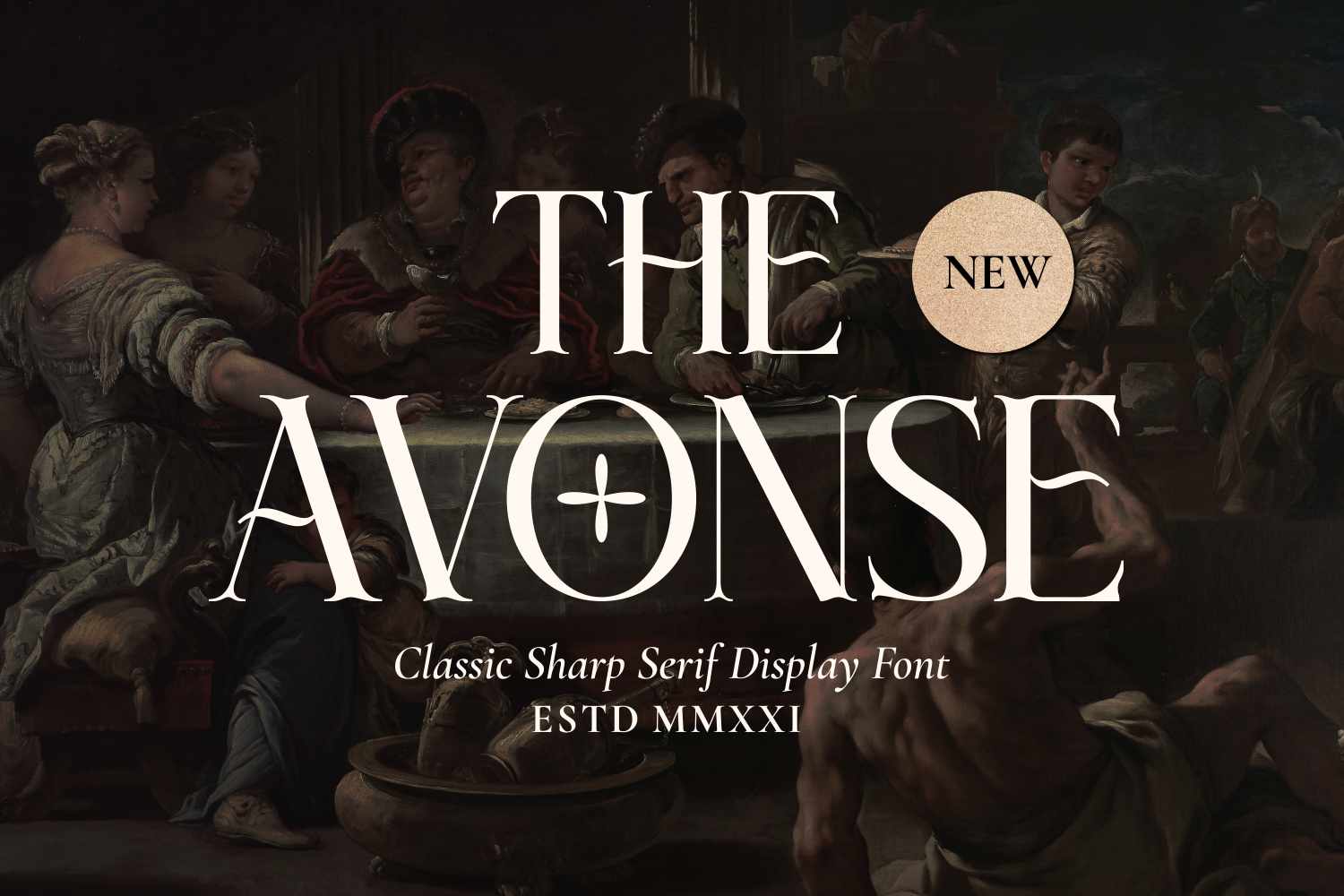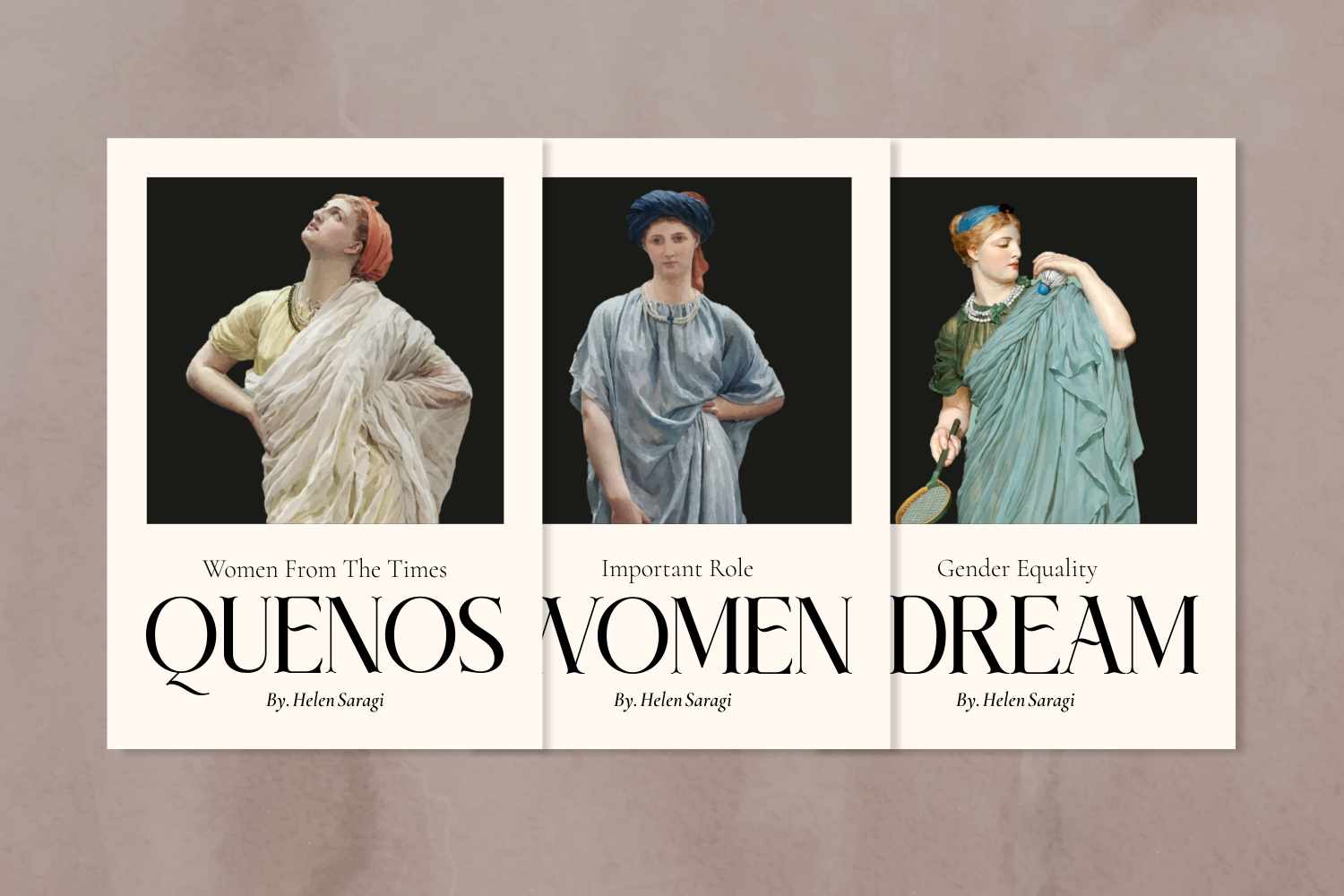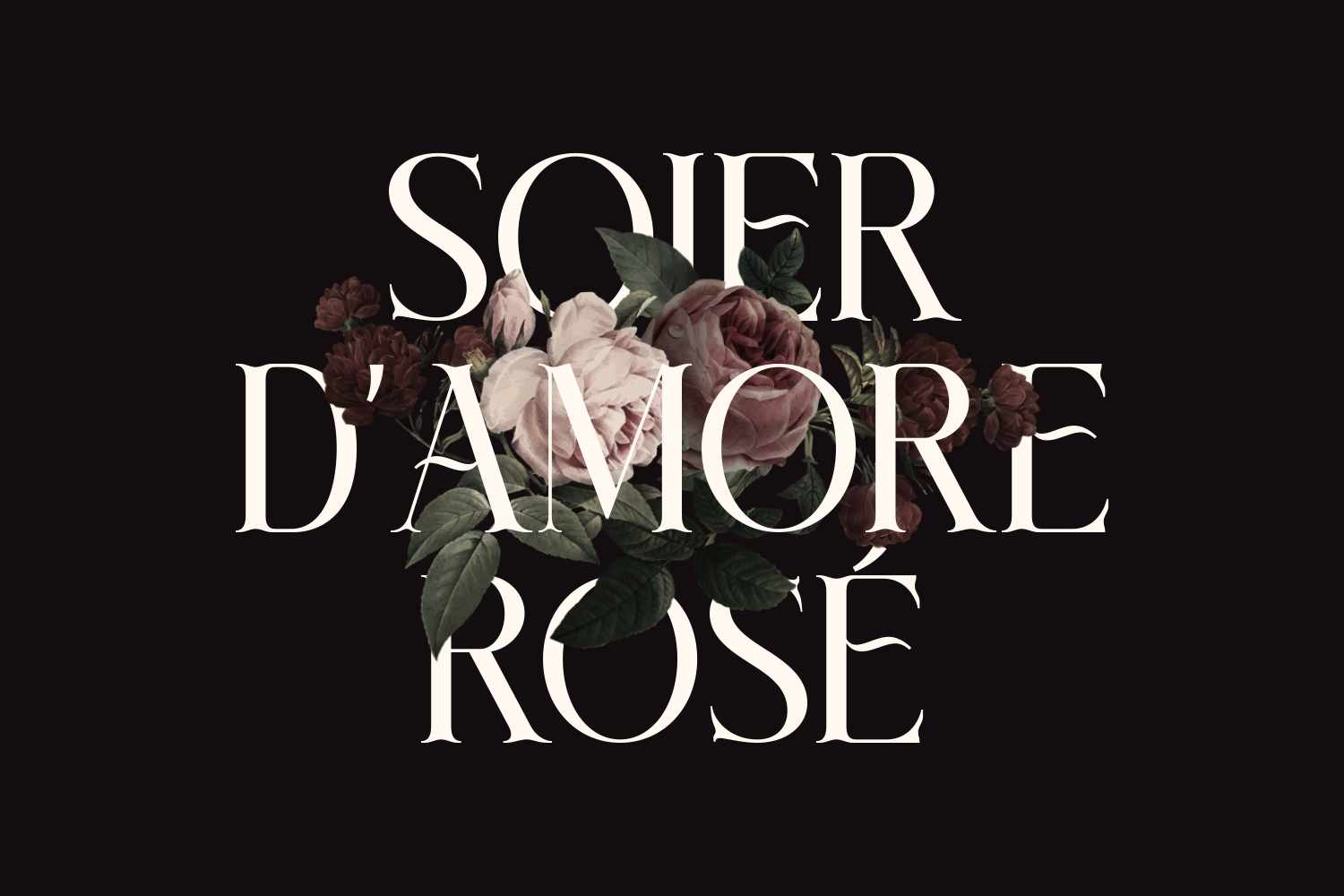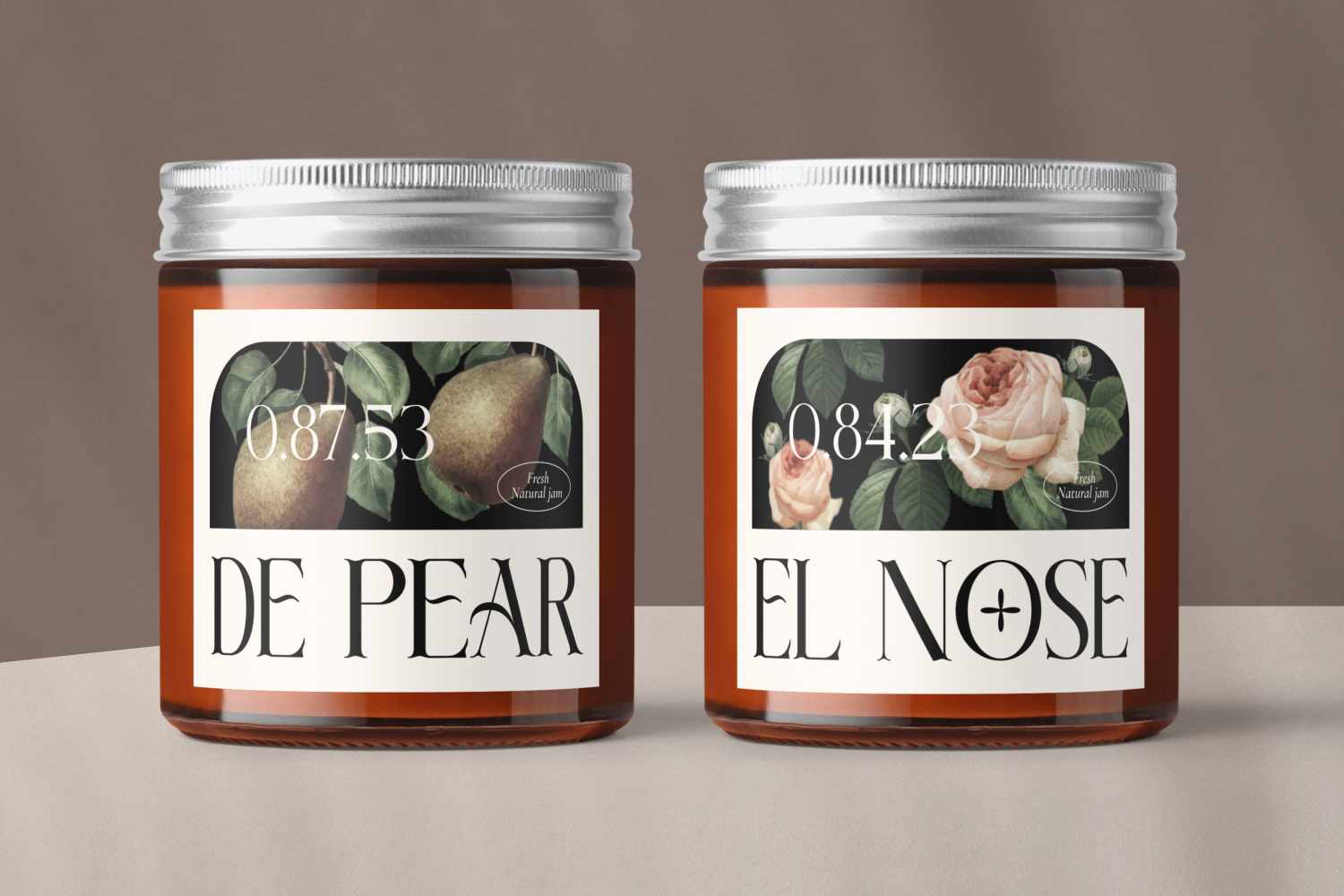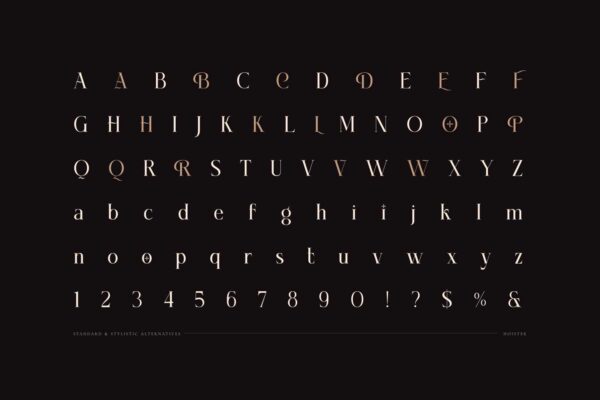
The Avonse
Avonse is a classic sharp serif display font with a high-contrast design and sophisticated letterforms. Featuring elegant curves, dramatic terminals, and refined alternates, it’s perfect for creating luxurious headlines, vintage-inspired branding, or editorial layouts that command attention. The distinctive alternates—such as the stylish ‘O’, ‘R’, and ‘F’—add a unique personality to every composition.
Designed for those who seek a blend of tradition and artistry, Avonse elevates any creative project with its timeless aesthetic and detailed craftsmanship. Ideal for packaging, fashion campaigns, magazines, and logos, this font evokes the charm of old-world elegance while remaining fresh and contemporary.